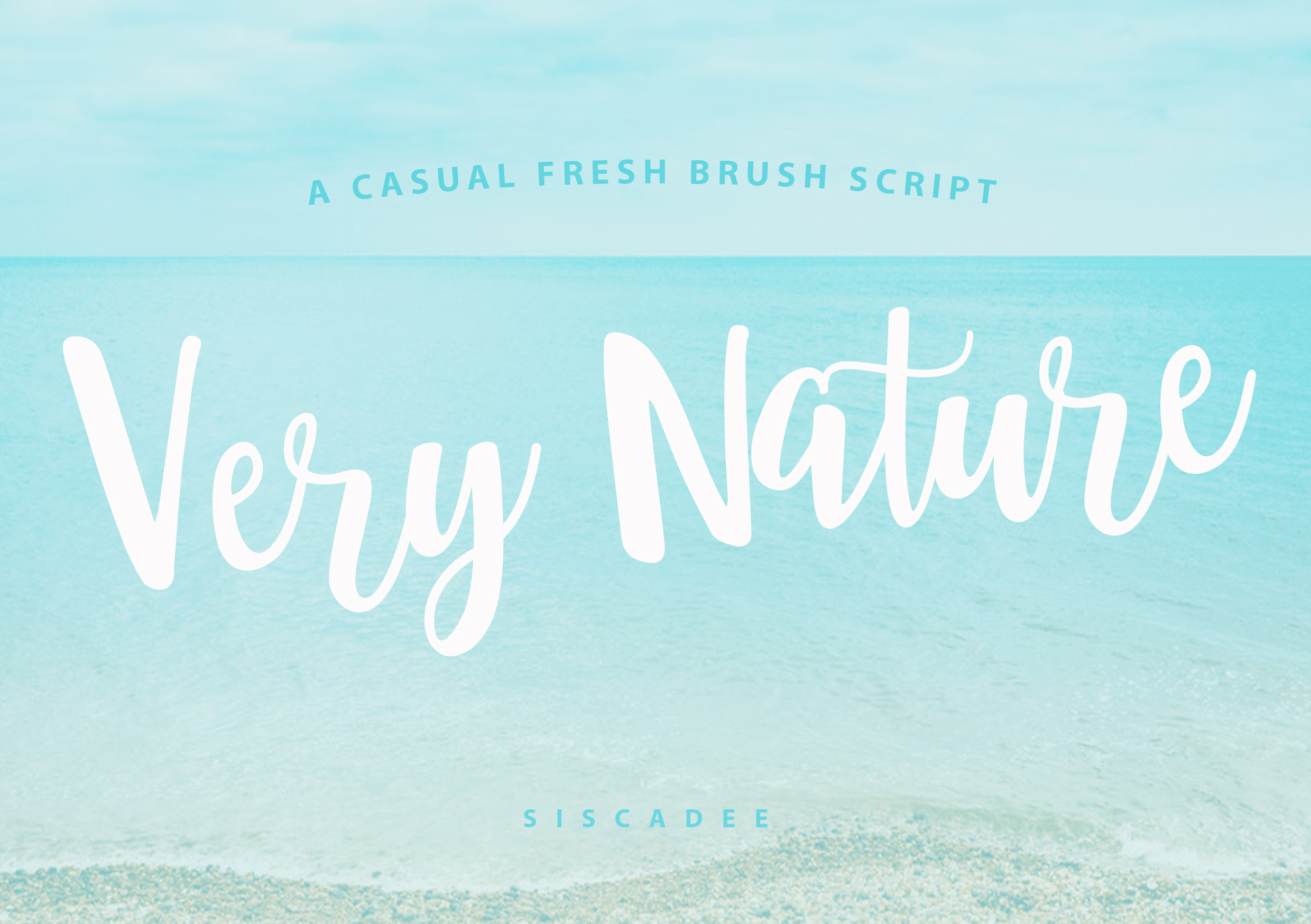
Very Nature Font
Very Nature is a casual and fresh, brush script font. This casual font will give your designs look fresh, modern on any quotes, wedding cards, logo's and all your other needs.